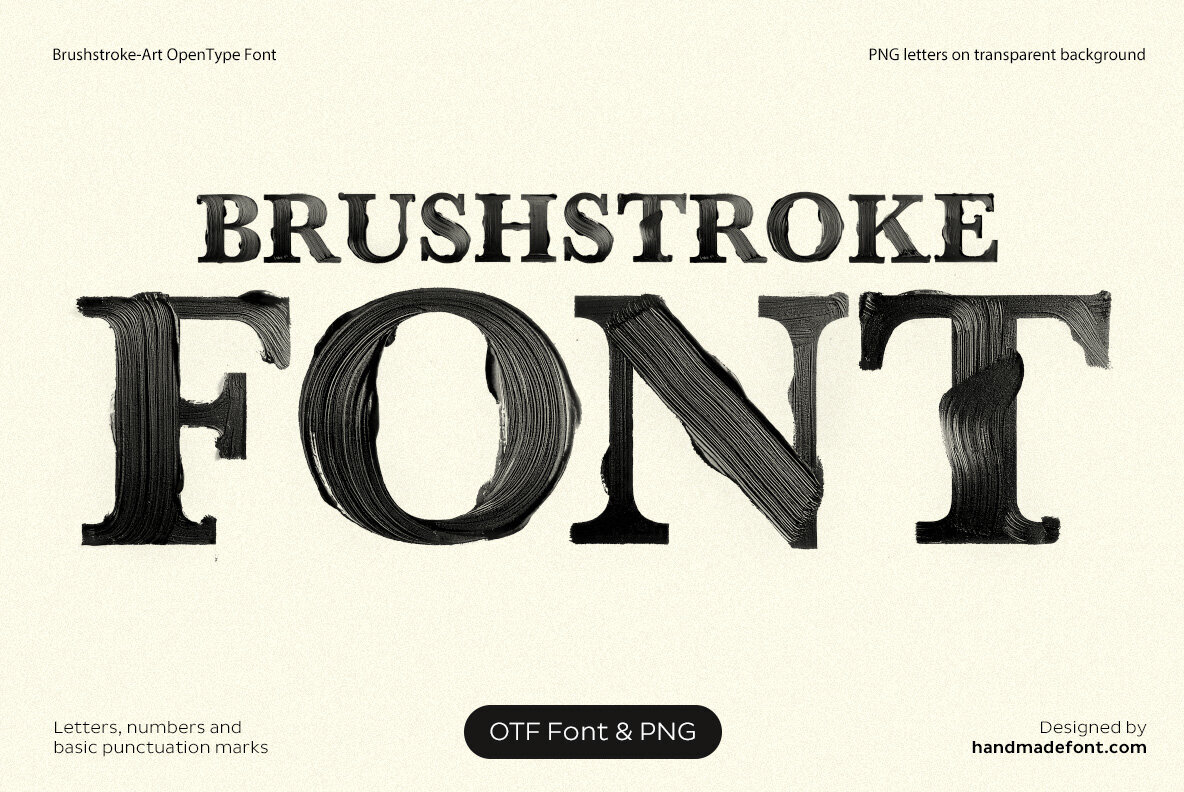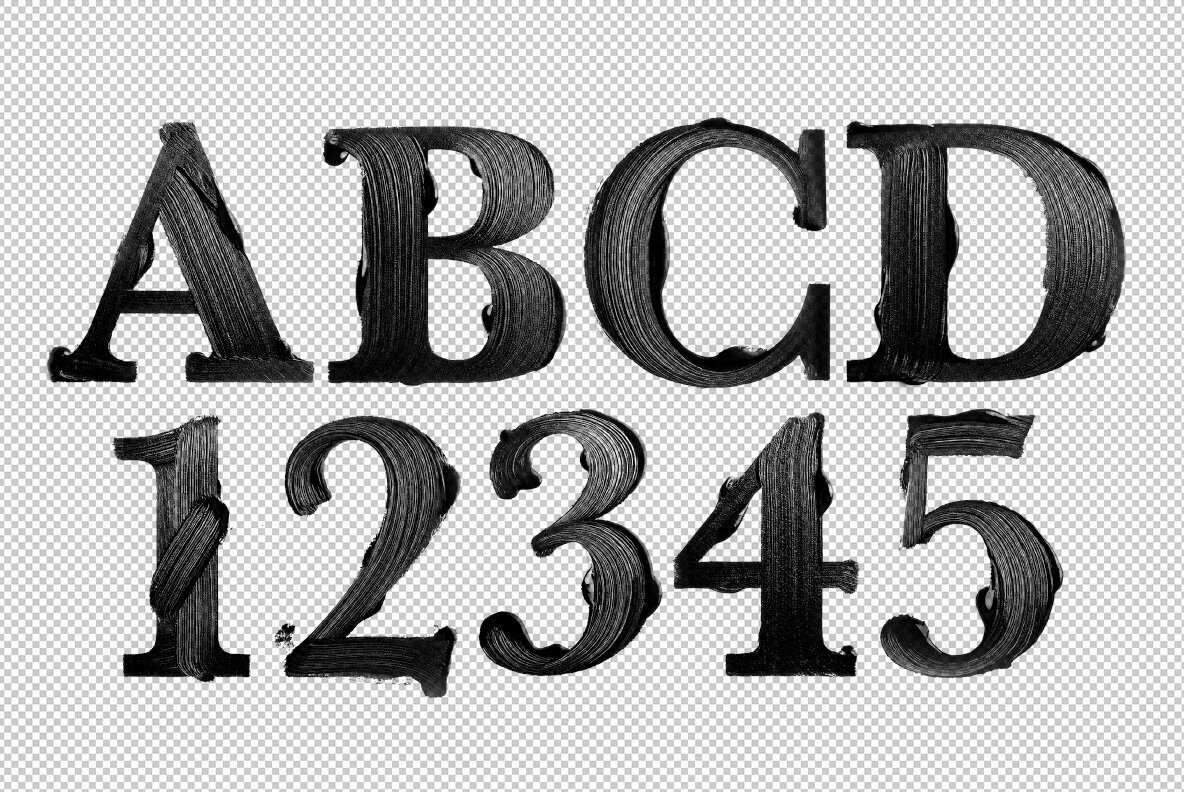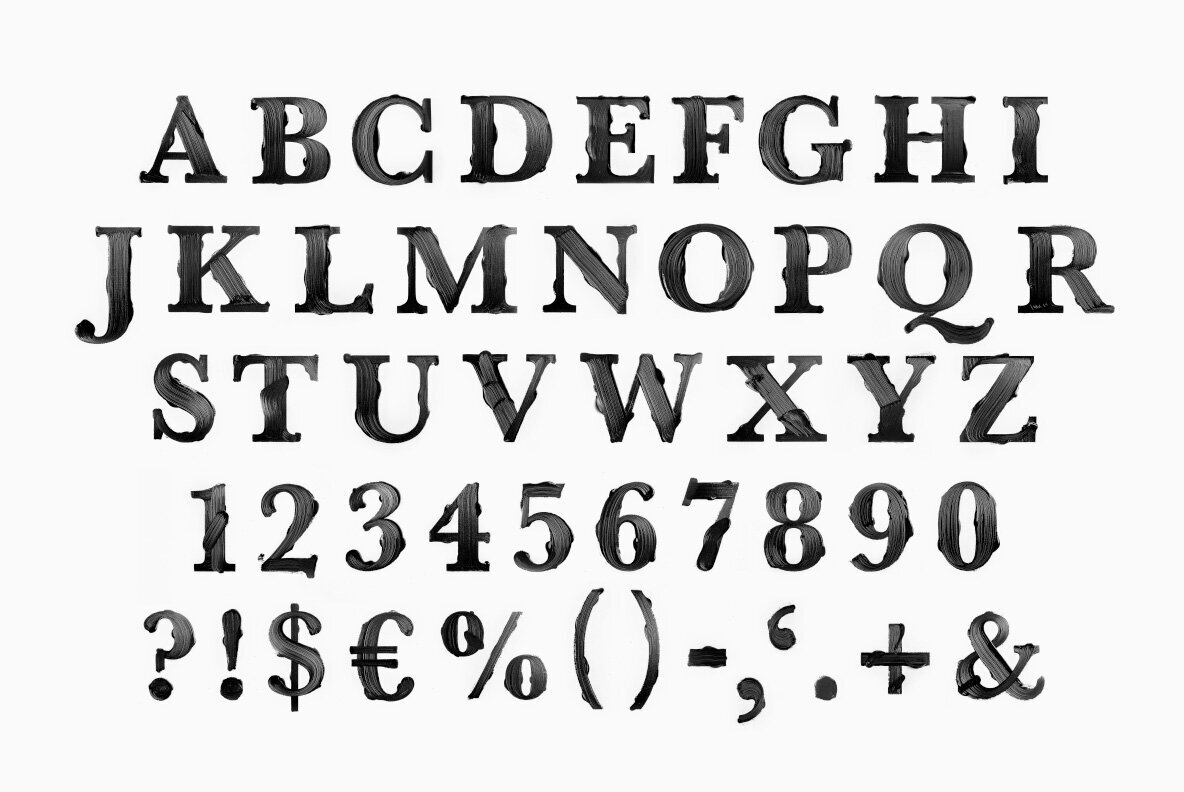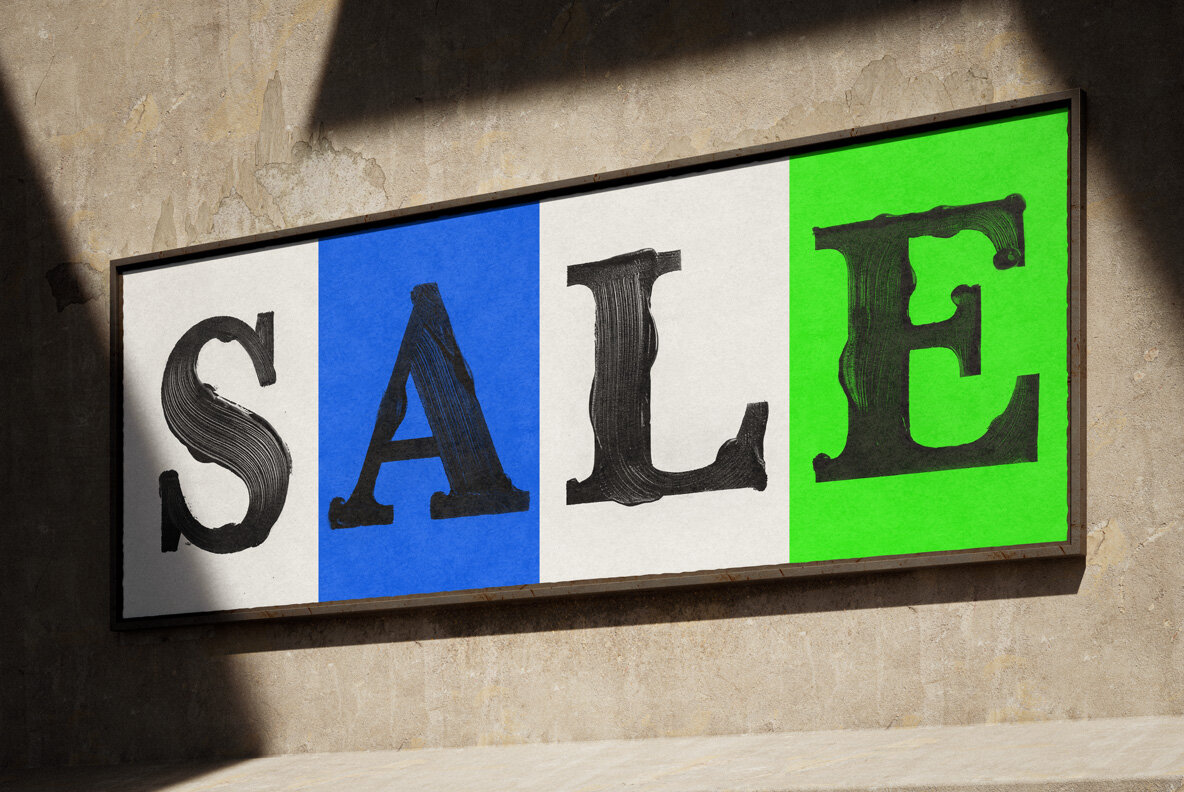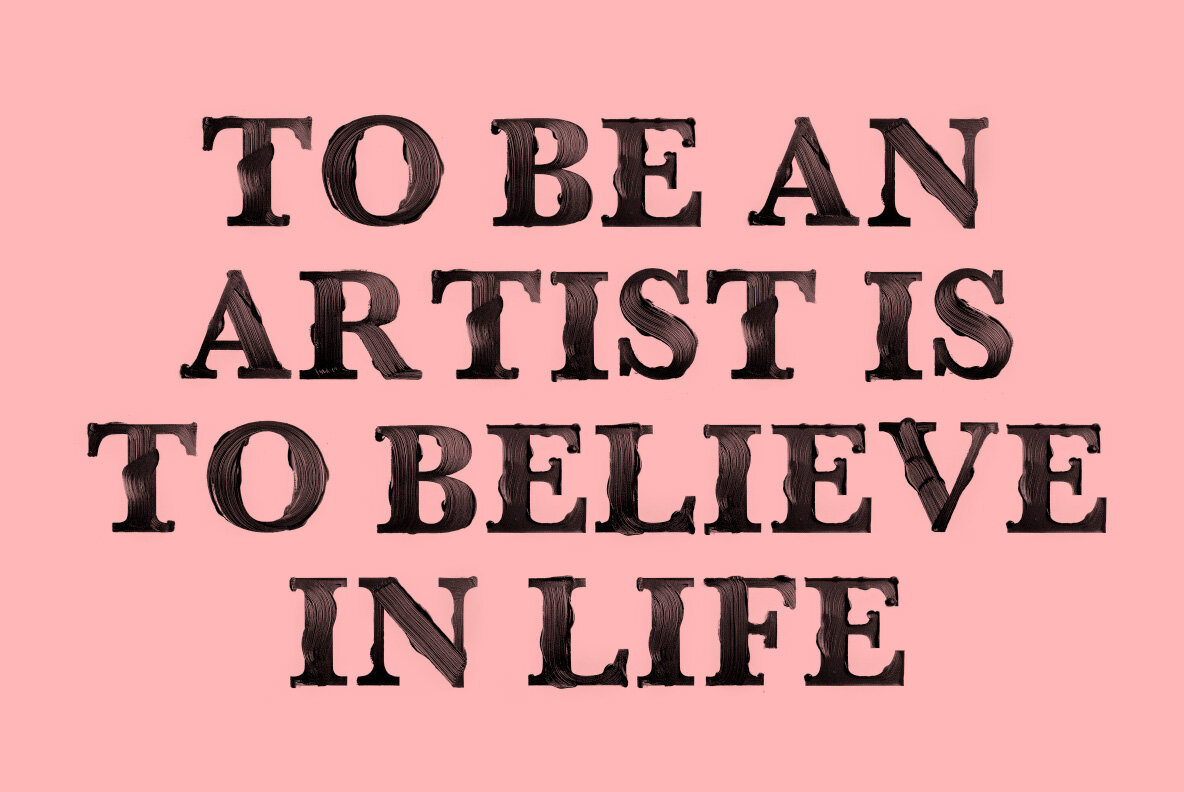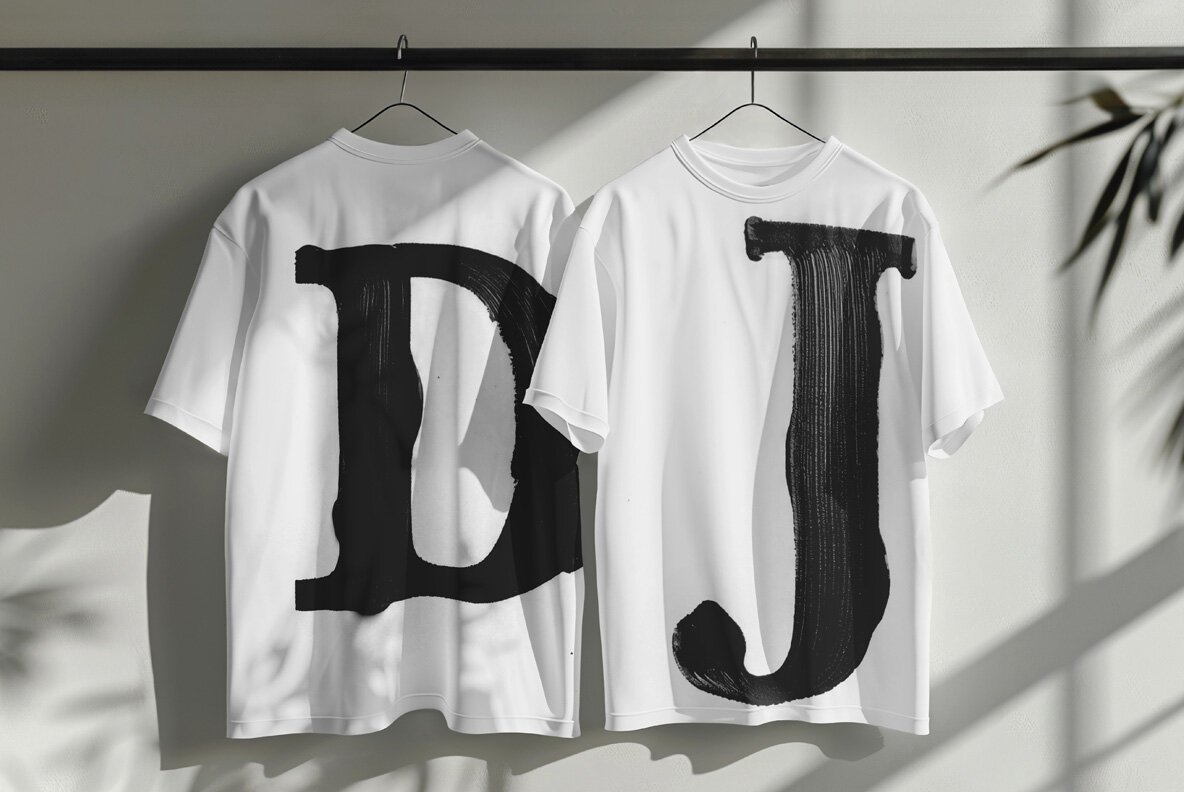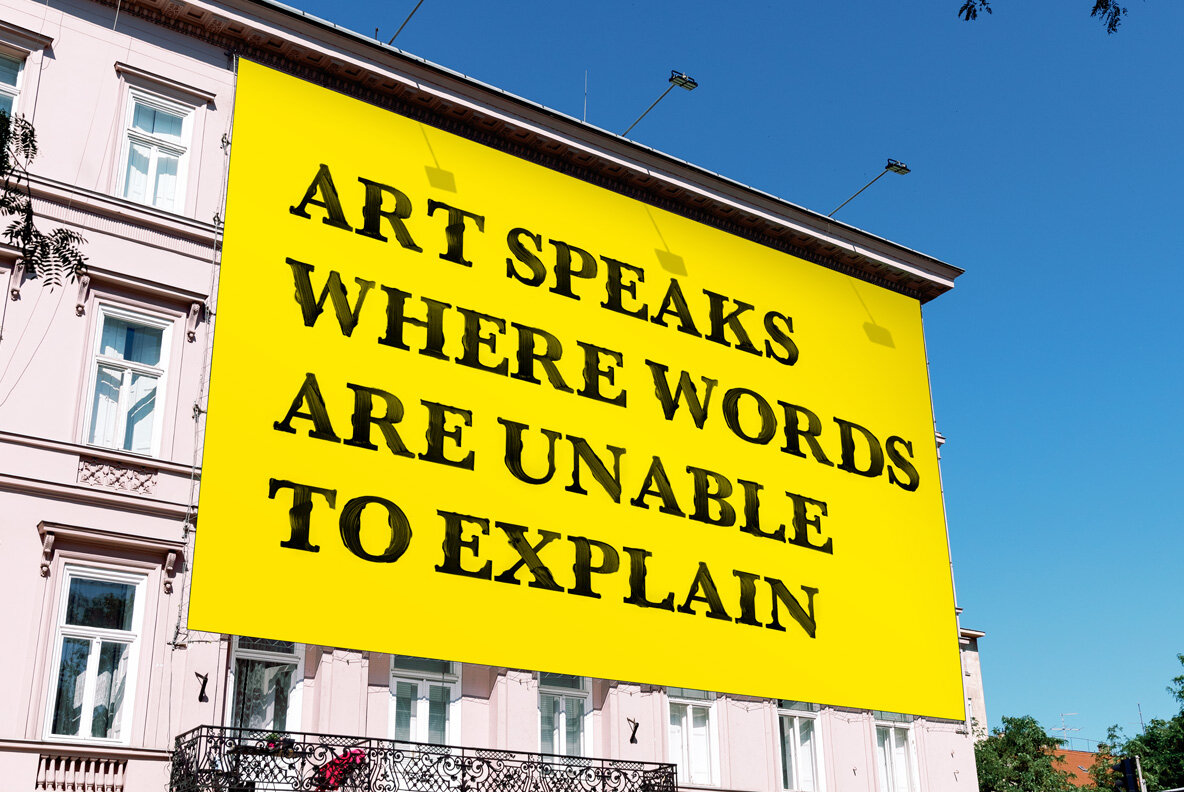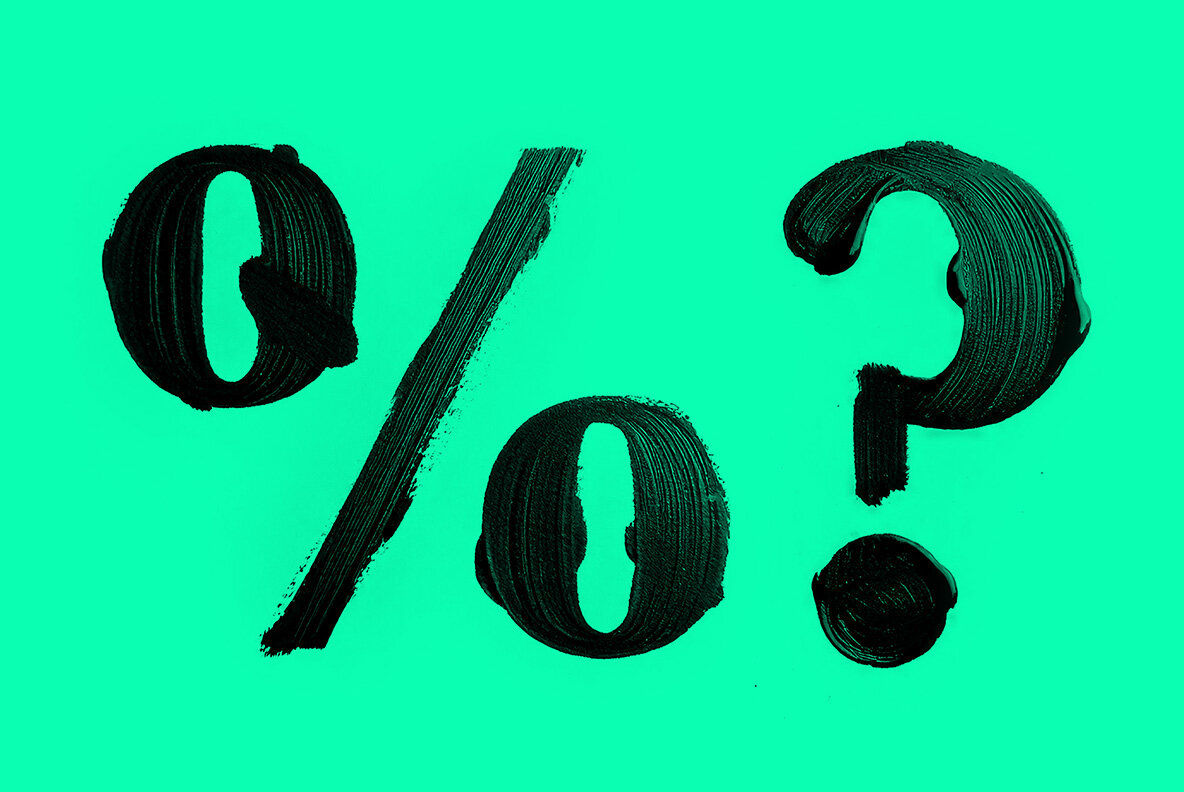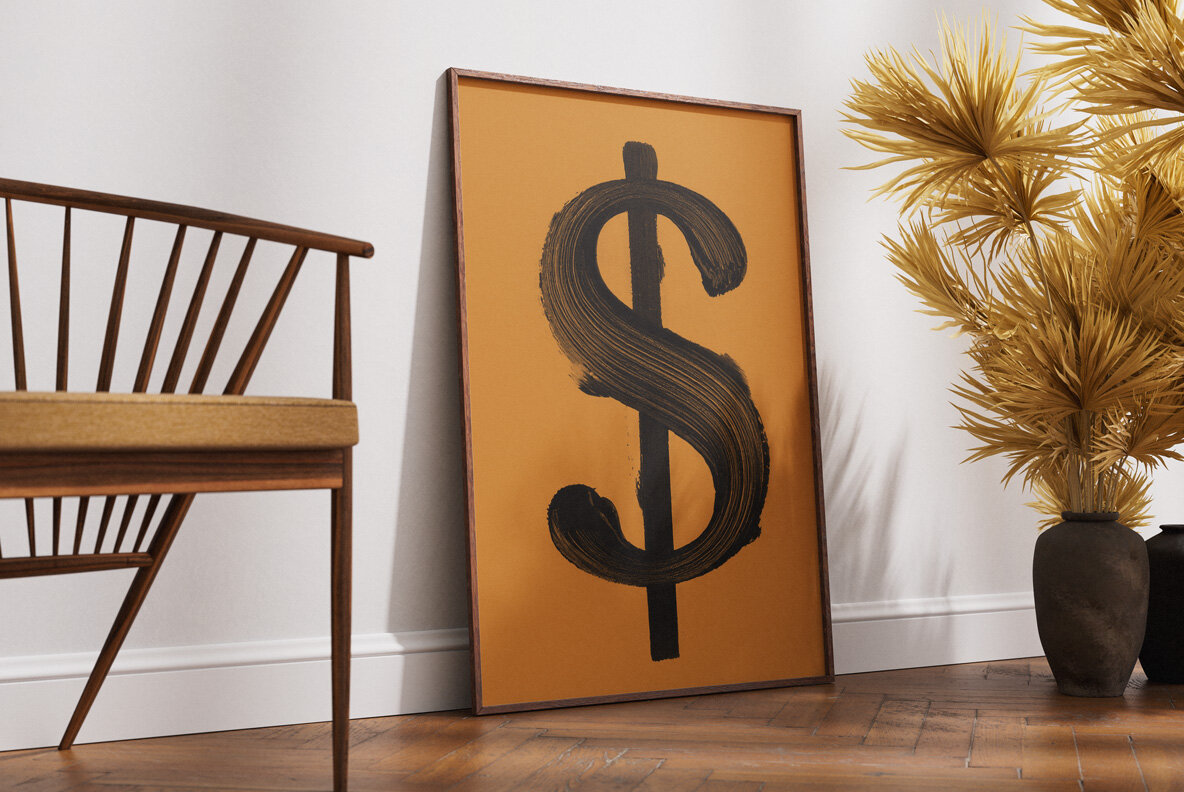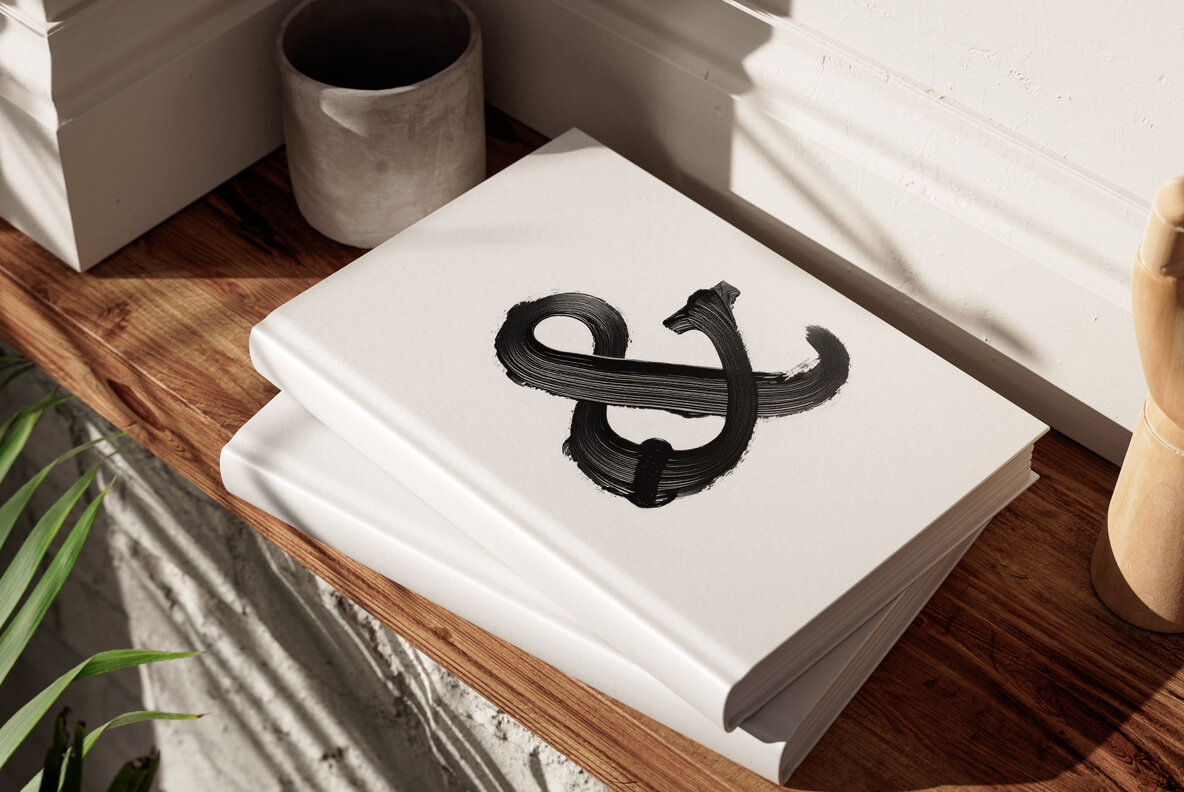
Brushstroke Art SVG is an artistic font that captures the essence of acrylic, watercolor, and ink. Every letter is crafted from bold black strokes, conveying the vigor and spontaneity of an artist's canvas. The design balances geometric precision with the untamed energy of brushstroke techniques, offering a typography style that is both structured and expressive. Perfect for logos, signage, or avant-garde designs, this font leaves a lasting impression akin to a bold brushstroke on a blank canvas.